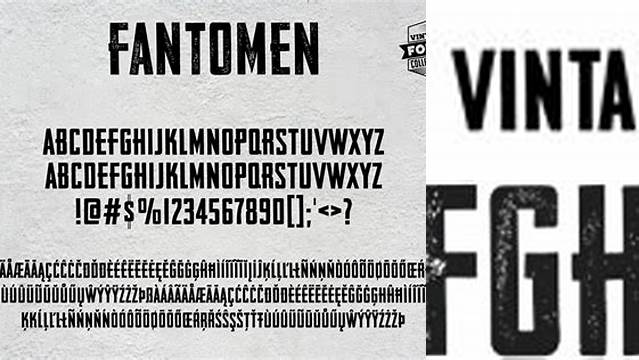
Vintage Fonts: VFC Fantomen Press Collection
Hey there, font fanatics! Ever stumbled upon a typeface that just screams old school cool? Well, today we're diving deep into the world of vintage fonts, specifically taking a peek at the awesome VFC Fantomen Press Collection. This isn't just about pretty letters, guys; it's about history, design, and a whole lotta character. So, buckle up, because we're about to explore a treasure trove of typographic gems. We'll be uncovering the charm, the stories, and the practical uses of these timeless designs. Get ready to be inspired!
H2: The Allure of Vintage Fonts: Why They Still Matter
Vintage fonts aren't just relics of the past; they're like the vintage cars of the design world – classic, stylish, and full of personality. In a world saturated with sleek, modern typefaces, vintage fonts offer a refreshing dose of nostalgia and authenticity. They transport us back to a time when craftsmanship and attention to detail were paramount. Think about it: these fonts were often hand-drawn or meticulously crafted, imbuing them with a unique character that's hard to replicate digitally. Their imperfections and quirks are what make them so appealing. In an age of mass production, vintage fonts stand out because they embrace the beauty of imperfection, and that’s a big part of their enduring appeal. The textures, the serifs, the unique letterforms – they all work together to create a visual experience that’s rich and engaging. Whether you're designing a retro poster, a website with a vintage vibe, or even a modern logo, vintage fonts can add that special touch that sets your work apart. They have the ability to instantly evoke a certain mood or era. They can make your design feel grounded, trustworthy, or even playful. They aren't just visually appealing; they also tell a story. They whisper tales of a bygone era, of printing presses, of artistic expression, and of a time when design was an art form. Using a vintage font is more than just making a design choice; it's a way to connect with the history of design and to honor the legacy of the artists who came before us. So, if you're looking for a way to add some soul to your designs, vintage fonts are definitely the way to go, my friends.
H2: Unveiling VFC Fantomen Press: A Deep Dive
Now, let's zoom in on the VFC Fantomen Press Collection. This isn't just any old font collection; it's a carefully curated selection of vintage fonts that captures the essence of a particular era, a particular style. The collection often showcases fonts that were popular in the early to mid-20th century. You'll find typefaces that were used in posters, advertisements, and publications from that time. One of the things that makes the VFC Fantomen Press Collection so special is its focus on authenticity. The fonts are often meticulously restored and digitized, preserving their original character and charm. You can trust that the fonts in this collection are faithful representations of their historical counterparts. The designers behind VFC Fantomen Press have a deep appreciation for the art of typography and a keen eye for detail. They understand that every curve, every weight, and every serif contributes to the overall aesthetic of a font. As you explore the VFC Fantomen Press Collection, you'll likely encounter fonts that are inspired by classic designs. You'll also discover fonts that embody the spirit of various artistic movements. These fonts are all meticulously crafted and lovingly preserved. The collection is more than just a set of fonts; it's a testament to the enduring power of good design. The collection is a testament to the skill and artistry of the type designers who created these fonts. It’s a resource for anyone who appreciates the beauty of typography. So, whether you're a seasoned designer or a typography enthusiast, the VFC Fantomen Press Collection offers a wealth of inspiration and creative possibilities.
H3: The History and Heritage of VFC Fantomen Press
Understanding the history behind the VFC Fantomen Press is crucial to fully appreciating the value of their vintage fonts. Often, the individuals behind the VFC Fantomen Press have a deep connection to the world of typography. They're often passionate about preserving the legacy of these fonts and ensuring that they continue to be used and enjoyed. They may have a background in graphic design, typography, or history. This passion translates directly into the quality of the fonts they offer. The collection itself often represents a journey through various eras and styles. You might find fonts that reflect the Art Deco period, the mid-century modern aesthetic, or even the bold graphics of the poster art of the past. Each font tells a story. The history and heritage of VFC Fantomen Press isn't just about the fonts themselves; it's also about the context in which they were created. They know that typography is inextricably linked to culture, history, and the evolution of design. The historical context helps explain the fonts’ design choices and what made them appealing. This is important to consider when selecting a font for a particular project. It's about preserving the knowledge and understanding of typography’s rich past. The VFC Fantomen Press is a vital part of this effort. They're dedicated to helping others understand and appreciate the history of typography. This can influence everything from their color choices to the layout of their designs.
H2: Key Features of VFC Fantomen Press Fonts
So, what sets the VFC Fantomen Press vintage fonts apart? They often possess a number of distinctive features. First, there is the attention to detail. These fonts are meticulously crafted, with every curve, every serif, and every weight carefully considered. This attention to detail ensures that the fonts retain their original character and charm. The design will often take inspiration from the fonts of the past. The fonts capture the essence of a particular historical period, such as Art Deco, mid-century modern, or Victorian. This historical authenticity is a key feature of the VFC Fantomen Press Collection. Secondly, they often feature a wide range of styles and weights. This versatility allows you to use them in a variety of design projects. You might find regular, bold, italic, and even condensed versions of a single font. This range of options gives you the flexibility to create designs that are both visually appealing and functionally effective. In addition, these fonts often include OpenType features. These advanced features can include ligatures, swashes, and alternative characters. This adds an extra layer of sophistication and customization to your designs. These fonts are not just visually appealing; they are also designed to be functional and easy to use. The designs incorporate features that are not commonly found in other fonts. These features add to the uniqueness and the historical value of these fonts. You’re not just getting a font; you're getting a carefully designed piece of art.
H3: Unique Characteristics: What Makes Them Stand Out?
What truly makes the VFC Fantomen Press vintage fonts unique? What sets them apart from the countless other typefaces available? One of the defining characteristics is their unique character. These fonts often have distinctive letterforms and design elements that are not found in other fonts. This uniqueness is what gives them their personality and makes them so memorable. This uniqueness allows you to set your designs apart. Another standout feature is their ability to evoke a specific mood or era. Each font is designed to evoke a particular feeling or to transport you back in time. Some of the fonts might be associated with a certain artistic movement, such as Art Deco or the mid-century modern aesthetic. This ability to evoke a specific mood makes them incredibly versatile. The fonts also often have a strong sense of craftsmanship. The fonts are often meticulously designed. This attention to detail is evident in every curve, every serif, and every weight. This craftsmanship gives these fonts a sense of quality and authenticity. The attention to detail is not just about aesthetics; it's also about functionality. The fonts are designed to be both visually appealing and easy to read. This is a crucial factor for a successful design. Their uniqueness also comes from the creative process behind them. The designers often spend countless hours researching and refining their designs to capture the essence of a particular style or era. This commitment to quality is apparent in every detail.
H2: Exploring Different Font Styles within the Collection
One of the great things about the VFC Fantomen Press collection is the variety of styles available. They offer a range of options to suit any design project. You'll find fonts that are inspired by different historical periods, artistic movements, and design aesthetics. This diverse selection of styles allows you to create designs that are both visually appealing and relevant to your chosen theme. Many collections will feature a variety of serif fonts, which are characterized by their small strokes at the ends of the letters. These fonts evoke a sense of tradition, sophistication, and elegance. They are ideal for projects that require a classic or formal look. VFC Fantomen Press collections often include sans-serif fonts, which lack the small strokes. These fonts have a more modern and clean appearance, making them great for projects that need a contemporary feel. You'll also discover script fonts, which mimic the look of handwriting. These fonts are perfect for adding a touch of personality, elegance, and authenticity. Script fonts are a great choice for projects such as invitations, logos, and branding materials. These fonts add personality. They can be used to create designs with a specific feel and message. Their versatility lets you make creative choices. You can create a classic, modern, or unique look for your design. With such a diverse range of styles, the VFC Fantomen Press collection offers something for every designer. The variety of styles within the collection provides ample opportunity to unleash your creativity.
H3: Serifs, Sans-Serifs, and Scripts: A Breakdown
Let’s break down the main font styles you'll likely encounter within the VFC Fantomen Press collection. Firstly, there are serif fonts. These fonts are characterized by the small strokes, or serifs, at the ends of the letters. These fonts evoke a sense of tradition, sophistication, and elegance. They are often associated with classic designs, formal settings, and high-end brands. They are ideal for projects that require a touch of refinement and timelessness. Next, we have sans-serif fonts. These fonts lack the small strokes, giving them a more modern and clean appearance. Sans-serif fonts are known for their simplicity and readability. They are a popular choice for digital displays, websites, and contemporary branding. Their clean lines and uncluttered appearance make them versatile and easy to read. And finally, there are script fonts. These fonts mimic the look of handwriting, with flowing and cursive letterforms. They are perfect for adding a touch of personality, elegance, and authenticity. Script fonts can evoke a sense of romance, creativity, and individuality. These fonts are great for adding a personal touch. They work well for projects such as invitations, logos, and branding materials. You'll also encounter a variety of sub-styles within these categories. You’ll find fonts that are inspired by historical periods, artistic movements, and design trends. Understanding the different font styles is crucial for choosing the right font for your design project. This choice has a huge impact on your design.
H2: Practical Applications of Vintage Fonts in Modern Design
Okay, so these vintage fonts are cool, but how can you actually use them in your designs today? Well, the possibilities are vast, guys! Vintage fonts can be incredibly effective in a wide range of projects, adding a touch of nostalgia and unique character. When it comes to branding, vintage fonts can help create a distinct brand identity. They can communicate a sense of history, authenticity, and trustworthiness. Think about using a vintage font for your logo, business cards, or website. The right font can make your brand stand out from the crowd and connect with your audience. For web design, vintage fonts can be used to add a unique visual flair to your website. Choose a vintage font that complements your content and reinforces your brand's message. You might use it for headlines, headings, or even body text. Make sure the font is legible at different sizes. For print design, vintage fonts work beautifully in posters, flyers, and other promotional materials. They can add a touch of retro charm, or a specific design aesthetic to your design. Think about using them for a product launch, a special event, or a marketing campaign. You can also use vintage fonts in packaging design to create a sense of nostalgia. It can make your product look more appealing. Vintage fonts are also great for social media graphics, adding visual interest to your posts. Using a vintage font for captions, quotes, or headlines can make your content stand out and capture your audience's attention. Ultimately, the best application will depend on the design project. Be creative and have fun exploring the endless possibilities of these awesome vintage fonts!
H3: Trusted Sources: Where to Buy Genuine Fonts
When buying vintage fonts, it's super important to make sure you're getting genuine fonts from trusted sources. This protects you from potential legal issues. It also ensures that you get high-quality fonts that will work properly in your designs. The first, and often best, place to start is the official website of the font foundry. This way, you’re getting the fonts straight from the source. The font foundry created the font. You can be certain that you're getting the authentic version of the font. Another great option is to buy the vintage fonts from a reputable font marketplace. These marketplaces often have a wide selection of fonts from different foundries. They provide a safe and secure way to purchase fonts. These sites have a solid reputation. They offer reliable customer support. Always make sure to do your research. You can check the website's reviews and ratings. Another way to tell if it's a good place is to look at the security measures. The best way to make sure that a website is secure is to look for the